The Best Minimalist Font Canva References
The Best Minimalist Font Canva References. When exploring minimalism, it’s easy to assume that in order to be minimal you need to exclusively use flat colours, but this is definitely not the case. Web here are 10 minimal fonts in canva you can use to create your logo:
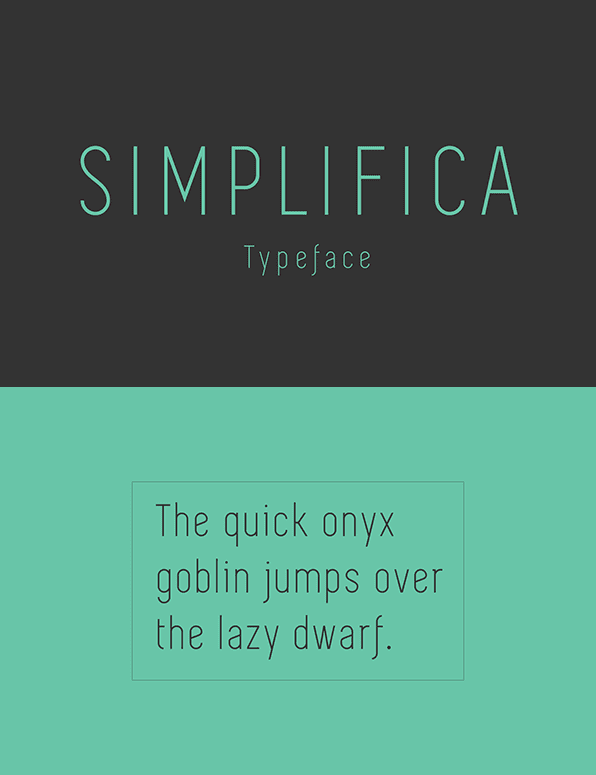
Web canva has really stepped up their font game of late, so i’ve compiled a list of my favourite minimalist fonts that you can use in your brand right now. Web sharing 25 minimalist fonts in canva that you may need to work well in creating your minimalist design. Web this article introduces 6 minimalist thai fonts in canva that will surely satisfy you.
Just Like Flatlion, Billion Miracles Is Another Best Script Aesthetic Font On Canva, And It’s A Perfect Blend Of Classic And Modern Handwriting.
If you are looking for a clean and simple look, these fonts are worth exploring. All of these fonts are free to use on canva (no paid subscription required) so there’s no excuse to have boring or generic type on any of your brand’s social posts any more! Web sharing 25 minimalist fonts in canva that you may need to work well in creating your minimalist design.
Web Best Canva Font Pairings & Combinations.
Web with sharp and clean lines, this canva font has a very minimalistic, elegant tone. Web 34 | billion miracles. I can't get enough of them!
Create Like A Pro With These Minimal Canva Fonts.
Still, in combination with bold, modern fonts a minimal. Web there's no longer any excuse to use boring or generic fonts in your branding. Introducing a little bit of texture into your design can give it that added depth and effectiveness without foregoing your minimalist aspirations.
When Exploring Minimalism, It’s Easy To Assume That In Order To Be Minimal You Need To Exclusively Use Flat Colours, But This Is Definitely Not The Case.
The pop of color adds to the fun and lets the font take the center stage of any. Web designed by nelson balaban, this font has a very minimalistic, stylish tone with crisp and clear lines. Choose a stunning color scheme and font combination.
Web 12 Nice Minimalist Fonts Available On Canva.
Web canva has really stepped up their font game of late, so i’ve compiled a list of my favourite minimalist fonts that you can use in your brand right now. There's no longer any excuse to use boring or generic fonts in your branding. Web free minimalist fonts on canva.